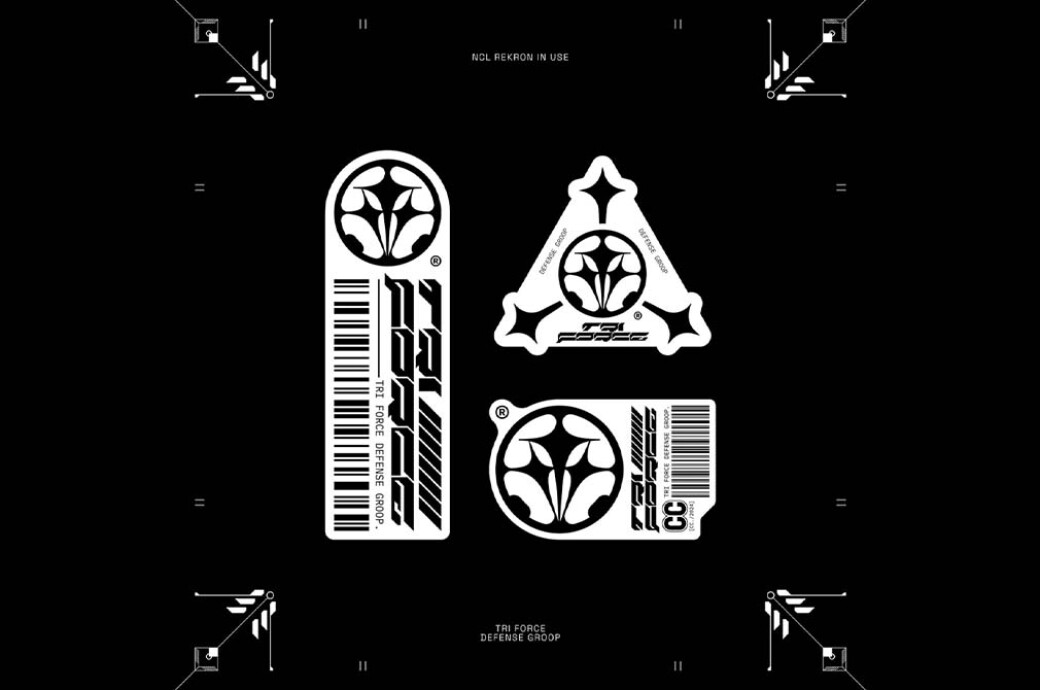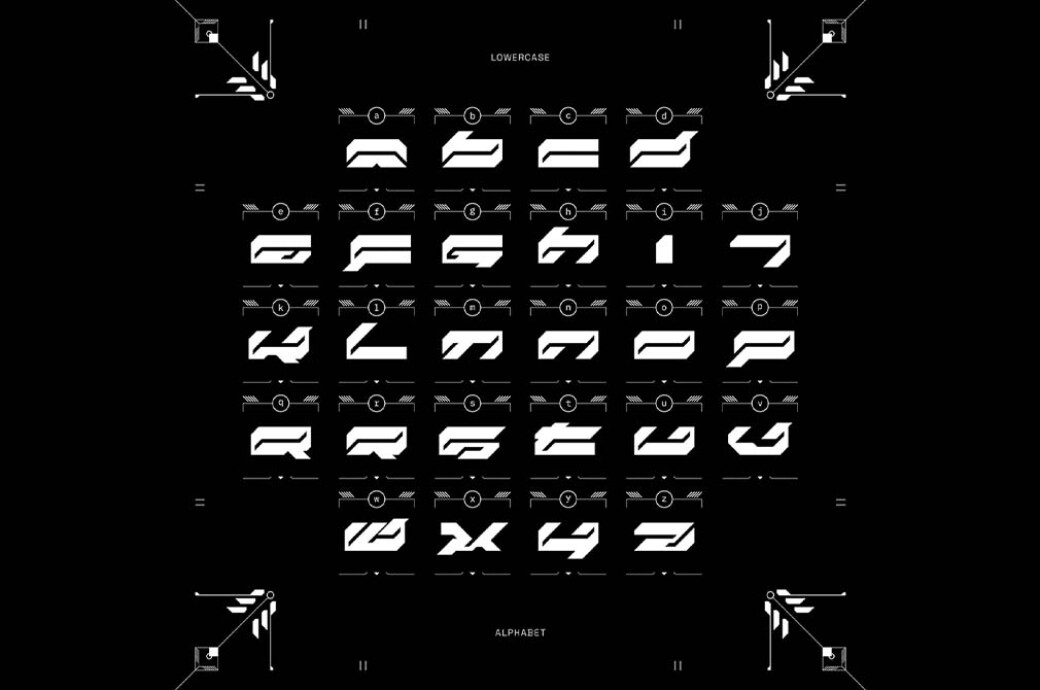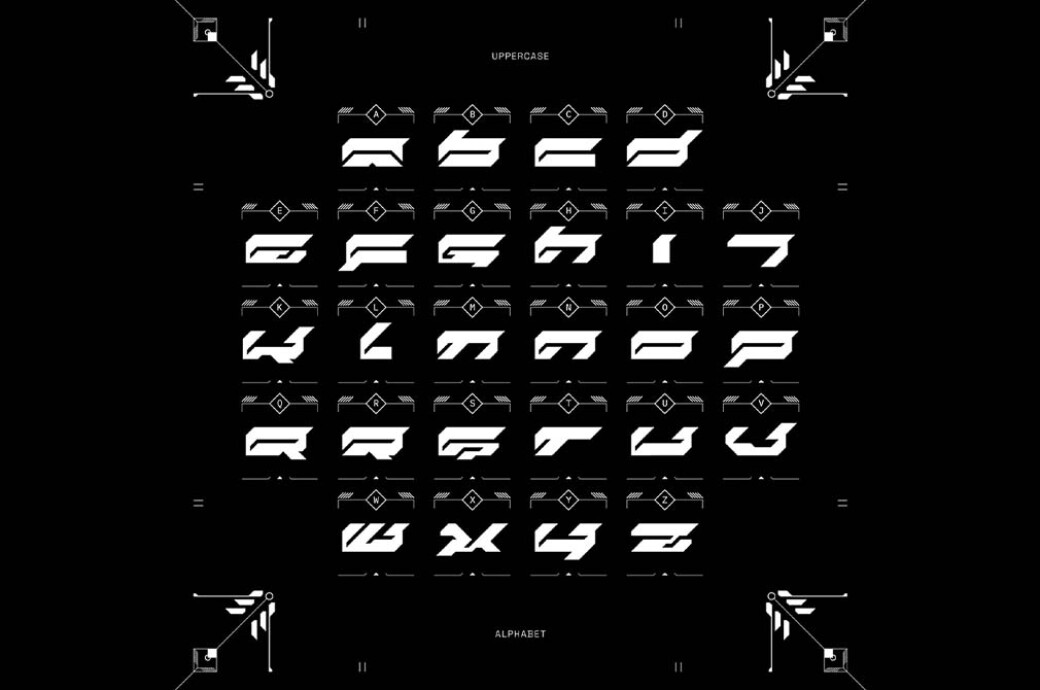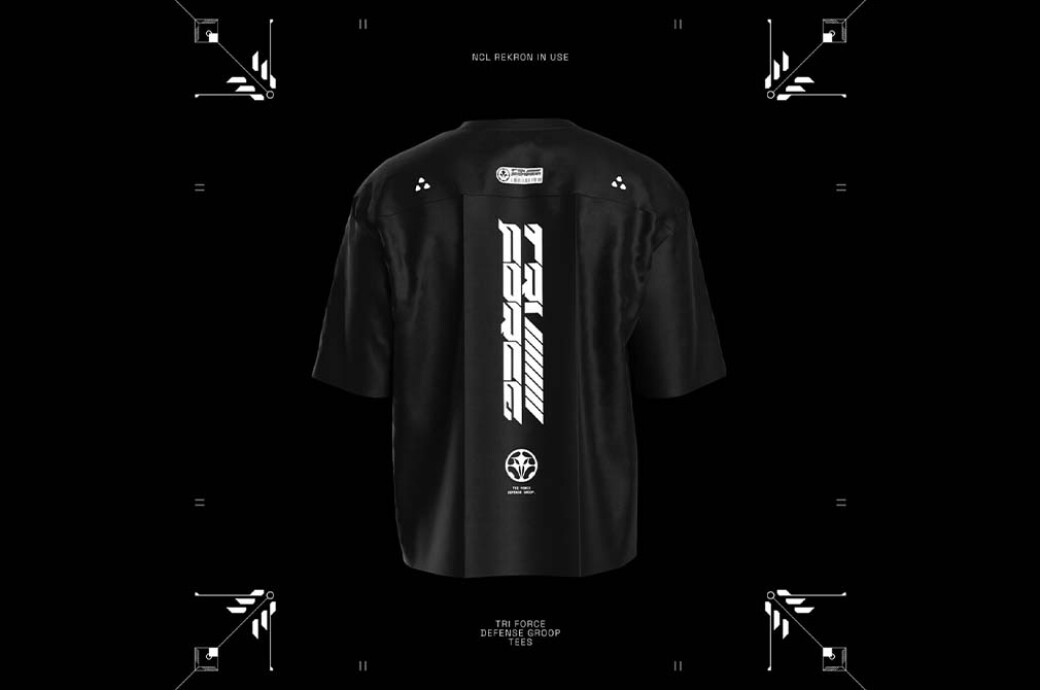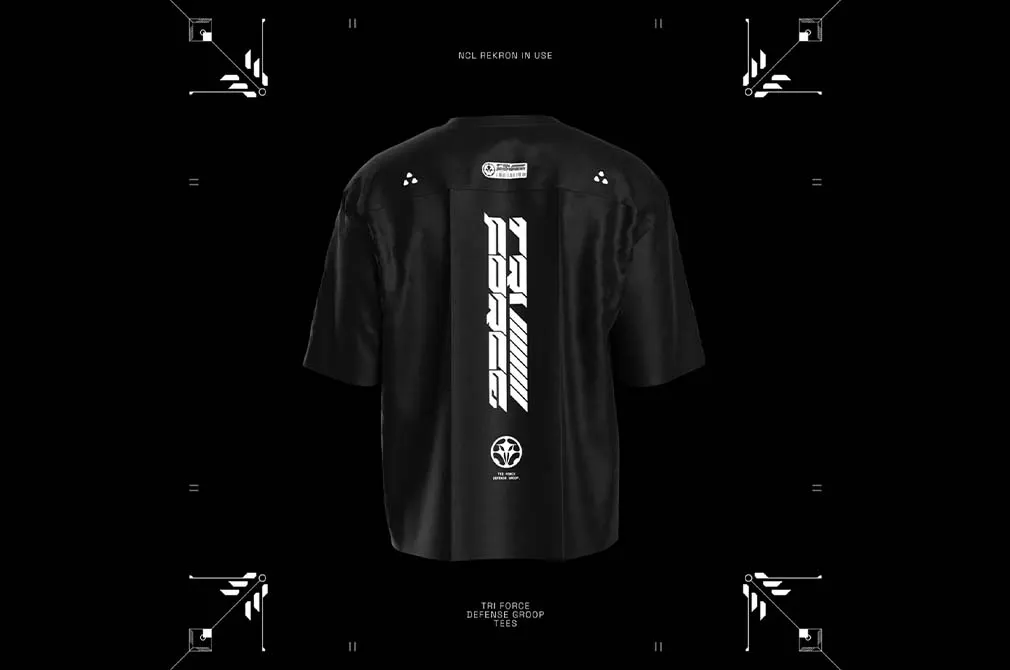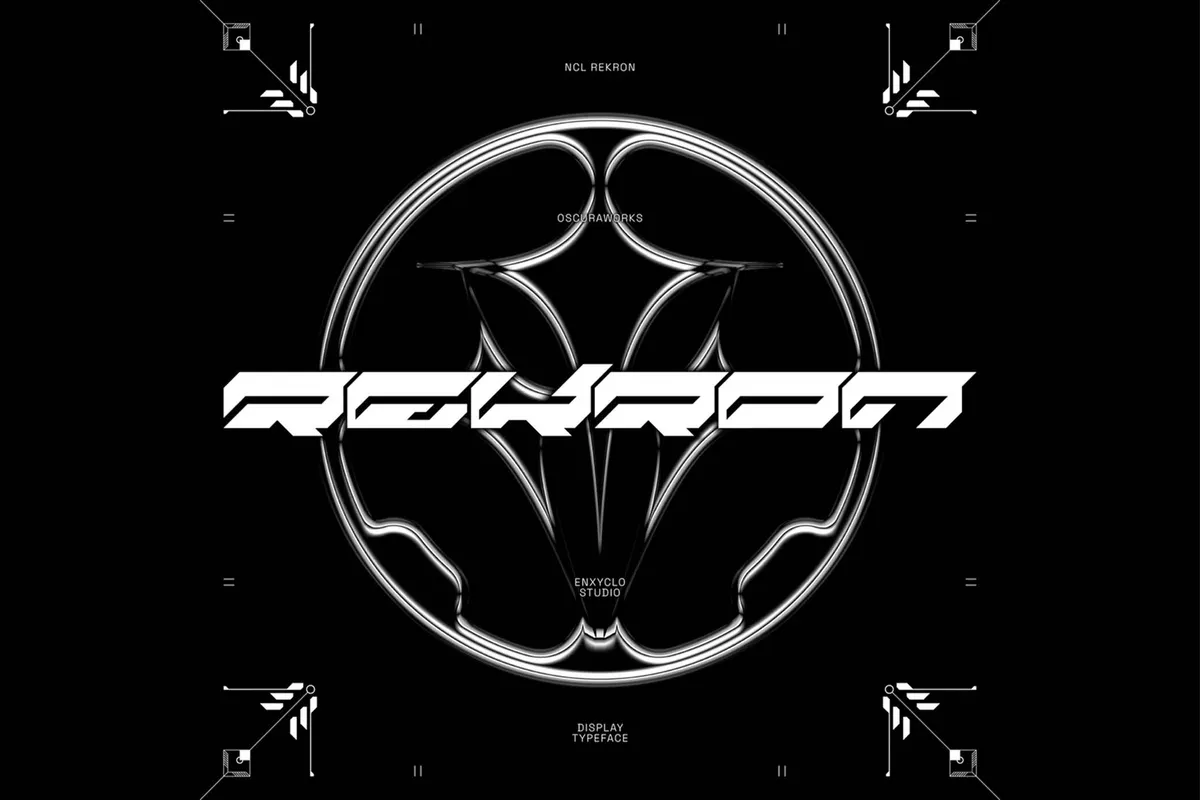
NCL REKRON — Y2K Futuristic Font
Futurism embraces sleek, high-tech designs, while Y2K brings bold, vibrant nostalgia from the early 2000s. NCL REKRON merges these styles in perfect proportion, creating a font that's both avant-garde and kinda retro.
The typeface includes 4 styles: Regular, Slanted, Outline, and Outline Slanted, each with 356 glyphs, totaling a whopping 1424 for the complete set. As long as aside from the standard uppercase, lowercase, numerals, and punctuation, you’ll also get a handful of alternates and extensive multilingual support. This font is your go-to for futuristic designs, album artwork, posters, headlines, and logotypes.